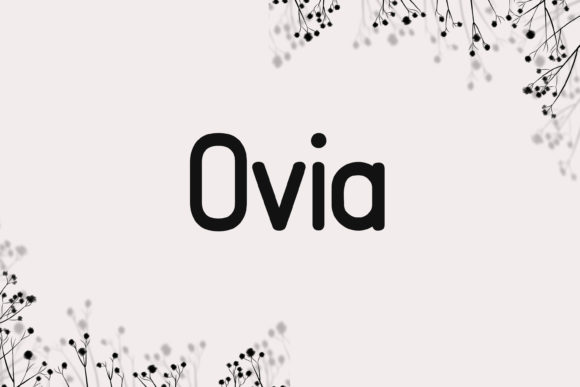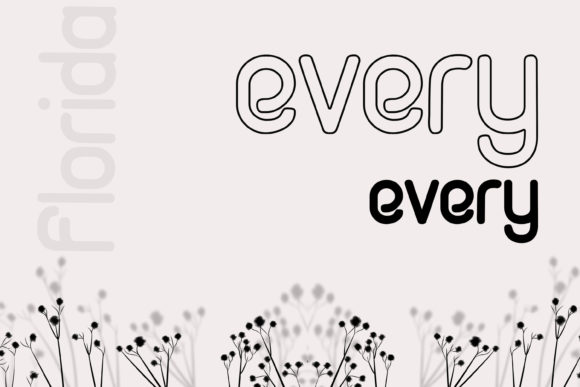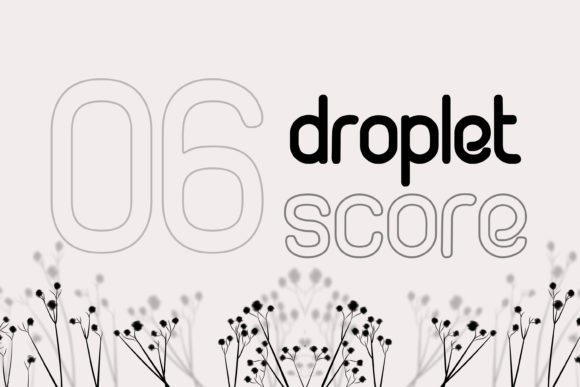
Discover the Versatility of Florida Font: A Clean and Simple Sans Serif for Your Creative Projects
Are you on the hunt for a font that embodies simplicity, cleanliness, and versatility? Look no further than the Florida Font. This clean and simple sans serif font is designed to seamlessly integrate into a wide array of projects, making it an indispensable tool for designers and crafters alike. In this article, we’ll dive into the characteristics that make Florida Font a standout choice for your creative endeavors and explore how it can elevate your designs to new heights.
The Essence of Florida Font
Florida Font is characterized by its sleek lines, uncluttered appearance, and highly legible sans serif design. Its simplicity is its greatest strength, allowing it to adapt to various design contexts without overpowering the content. Whether you’re working on a branding project, crafting a website, designing marketing materials, or creating handmade crafts, Florida Font offers a clean slate that enhances readability and aesthetic appeal.
One of the key advantages of Florida Font is its incredible versatility. Its neutral design ensures that it can be paired with a vast range of other fonts and design elements, making it incredibly adaptable to different styles and themes. From modern and minimalist to playful and informal, Florida Font can easily be matched to an incredibly large set of projects. This versatility not only saves time but also opens up a world of creative possibilities, allowing you to experiment with different combinations to find the perfect look for your project.
Elevate Your Creative Projects
Adding Florida Font to your creative toolkit can significantly enhance your projects. Its clean and simple design makes it an excellent choice for:
- Branding: Create a strong and modern brand identity with a font that communicates professionalism and sophistication.
- Web Design: Improve user experience with a highly legible font that works well across various devices and screen sizes.
- Marketing Materials: Make your brochures, flyers, and posters stand out with a fresh and contemporary look.
- Crafts: Add a modern touch to your handmade crafts, such as journals, planners, and DIY decor.
Why Choose Florida Font?
There are several reasons why Florida Font should be your go-to choice for your next project:
- Legibility: Its clear and simple design ensures that your message is conveyed effectively, making it perfect for both digital and print materials.
- Flexibility: Use it for headings, body text, or any other design element where a clean and modern look is desired.
- Timelessness: Unlike trendy fonts that may quickly become outdated, Florida Font’s classic simplicity ensures it remains relevant for years to come.
Getting Started with Florida Font
Incorporating Florida Font into your projects is easy. Here are a few tips to get you started:
- Experiment with Sizes: Florida Font works well in various sizes, from large headings to smaller body text.
- Play with Colors: While Florida Font works well in black and white, experimenting with colors can add an extra layer of personality to your designs.
- Mix and Match: Don’t be afraid to pair Florida Font with other fonts to create interesting contrasts and hierarchies in your designs.
In conclusion, Florida Font is a powerful tool for designers and crafters looking to add a touch of simplicity and elegance to their projects. Its versatility, legibility, and timeless design make it an excellent choice for a wide range of applications. By incorporating Florida Font into your creative arsenal, you’ll be well on your way to creating standout designs that capture attention and communicate your message effectively.
| Font Name | Florida Font |
| Author | BeeType |